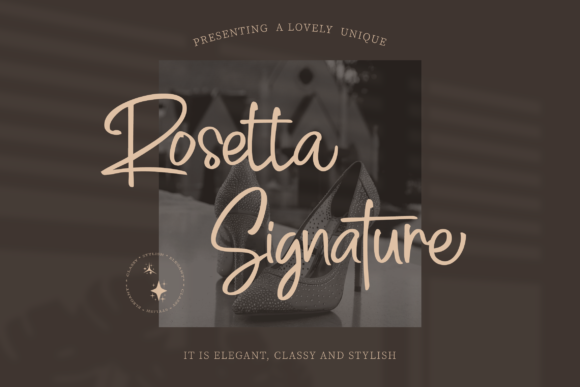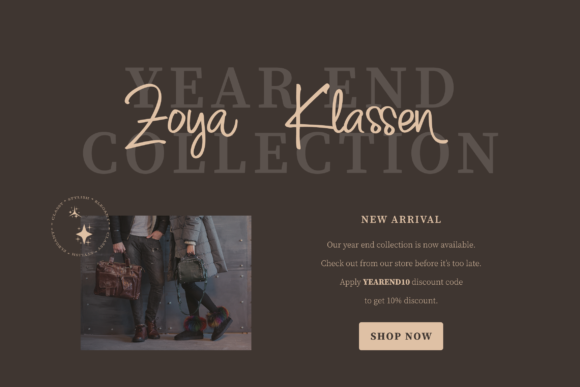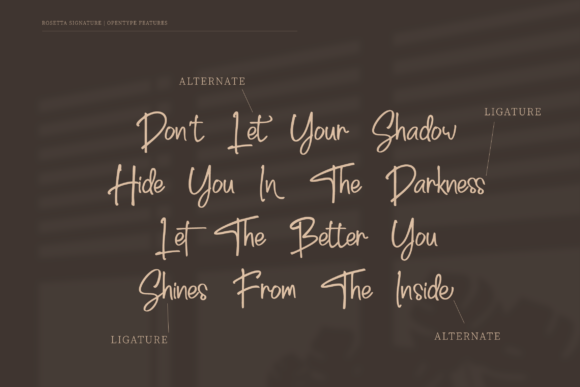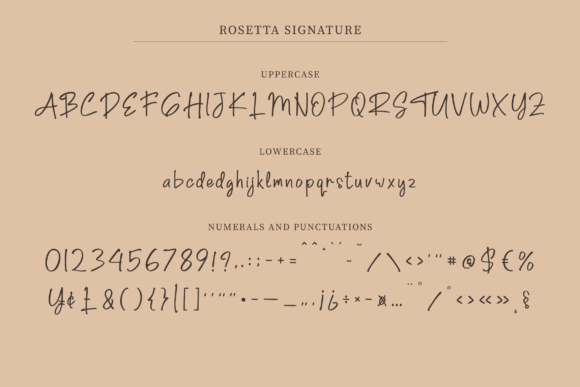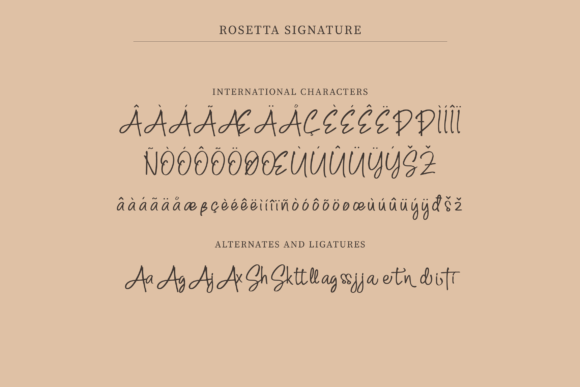
About Rosetta Signature Font
Rosetta Signature is a relaxed and stylish handwritten. It looks lovely on wedding invitations, thank you cards, quotes, greeting cards, logos, business cards and every other design which needs a customized touch.